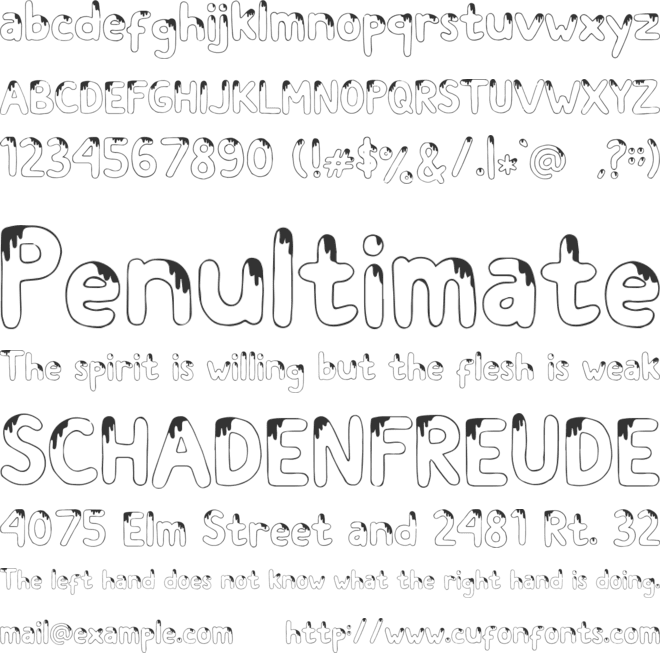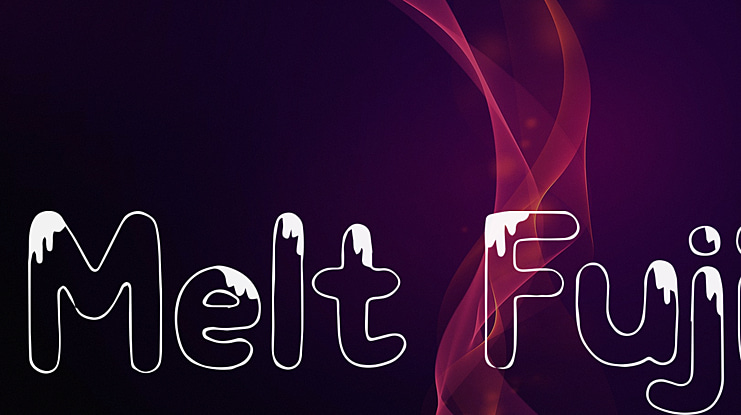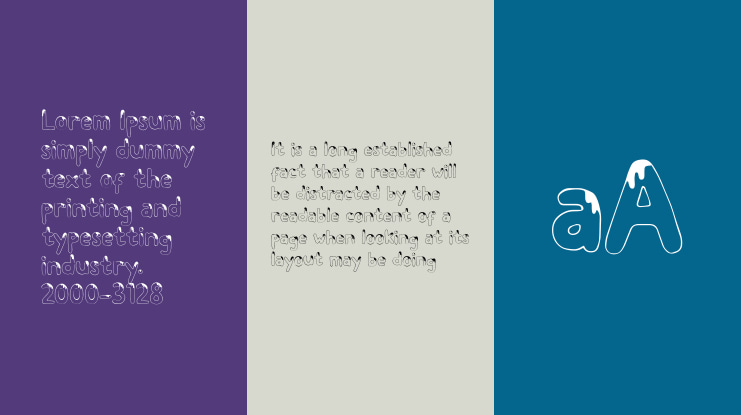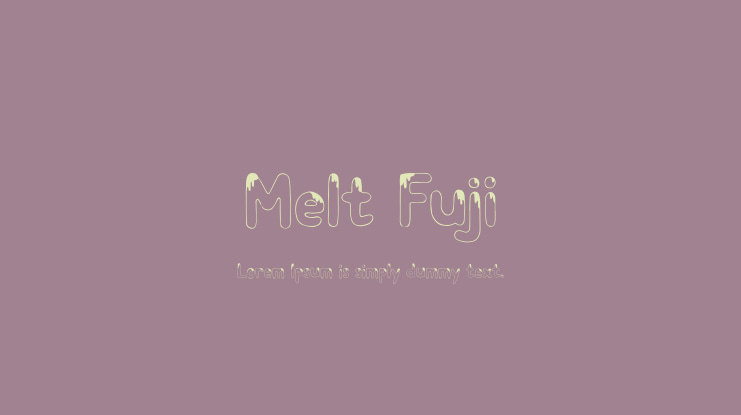
Melt Fuji Font
Melt Fuji is a cool decorative font that inspired by beautiful scenery of a snow covered mountain. If you need a cool and unique touch for any kind of design projects, then Melt Fuji is the missing piece that you need!
Melt Fuji Font is suitable for variety of design project such as branding, logo, social media posts, invitations, advertisements, so much more. Let’s get creative with Melt Fuji!